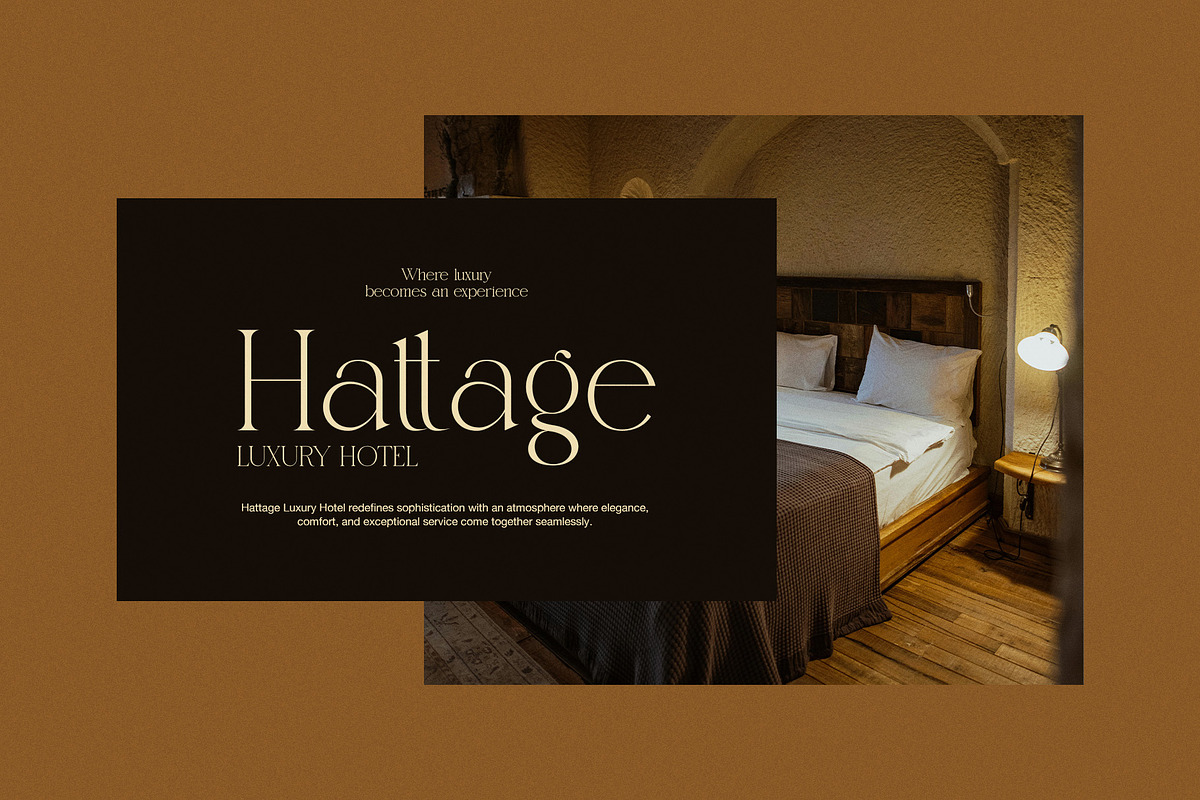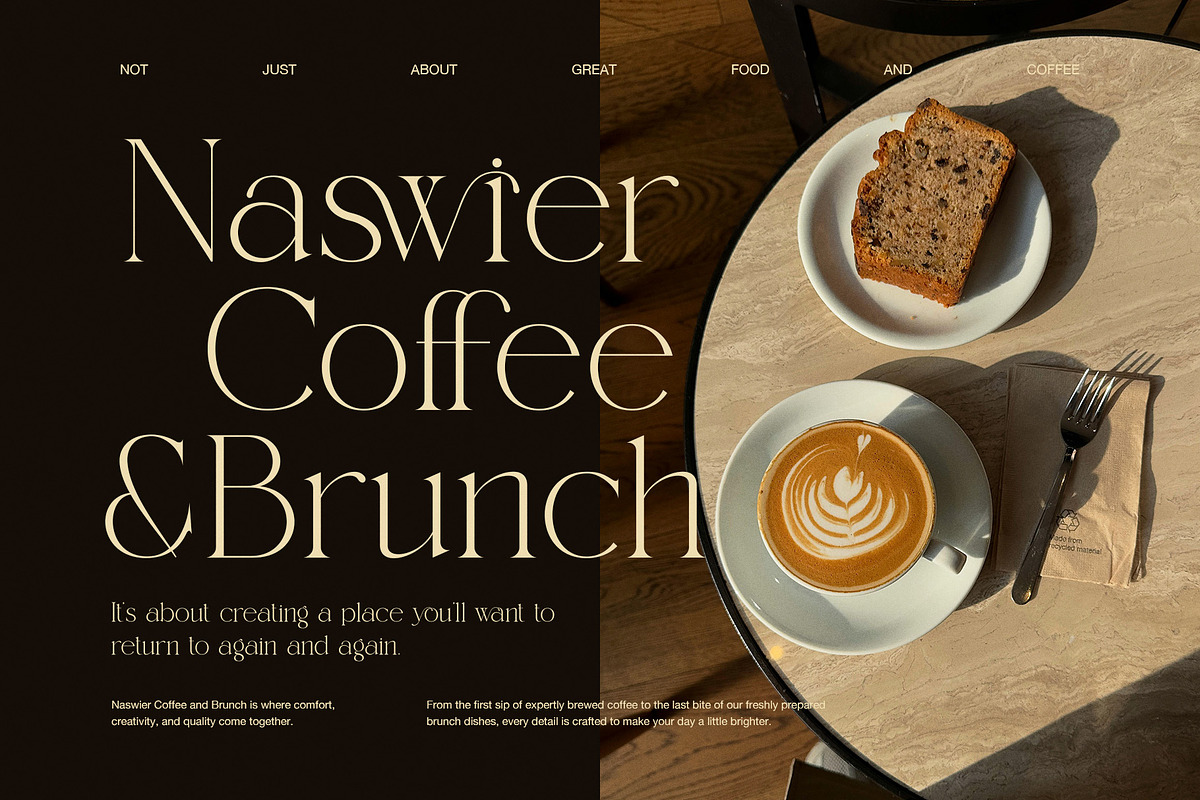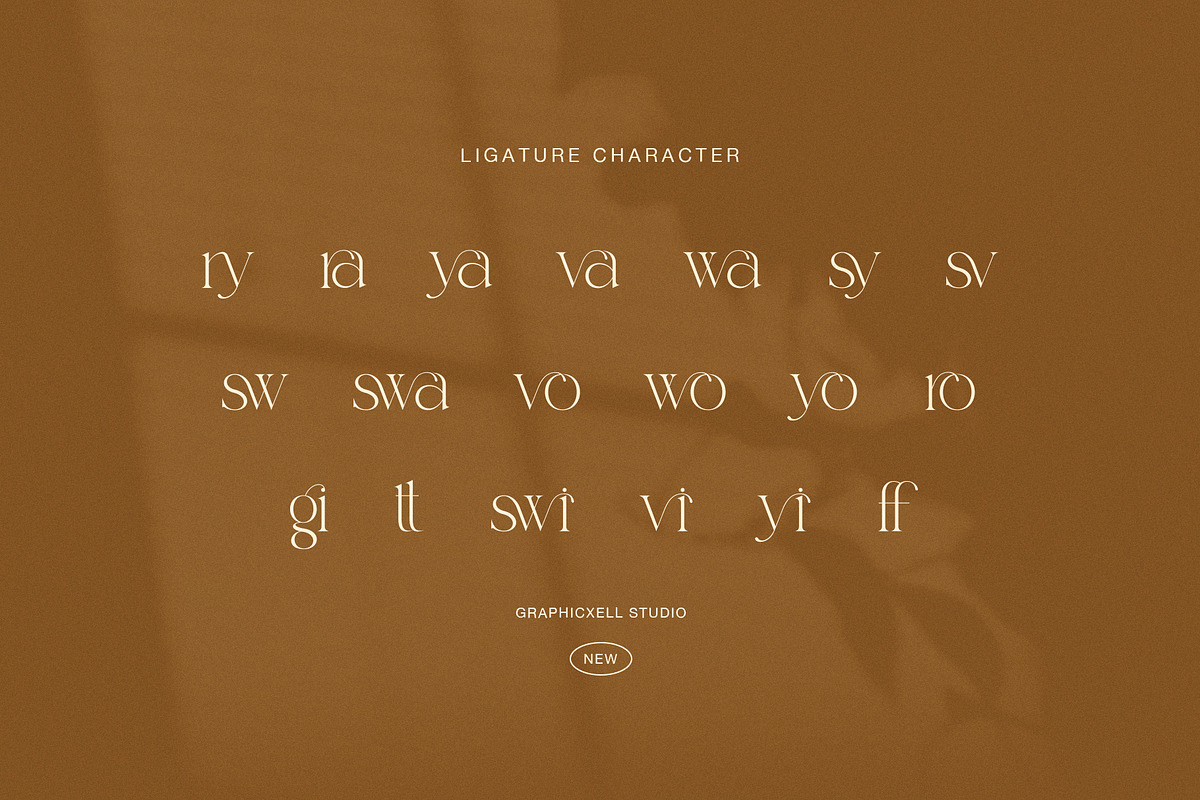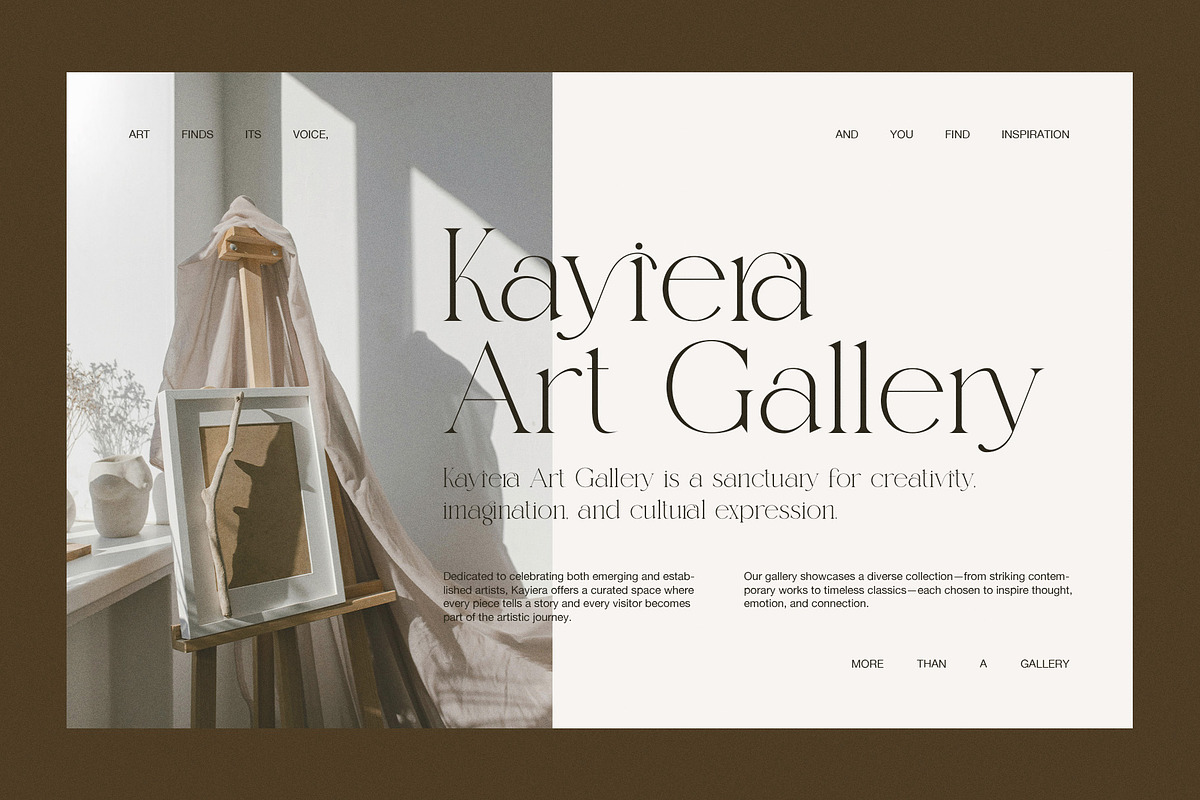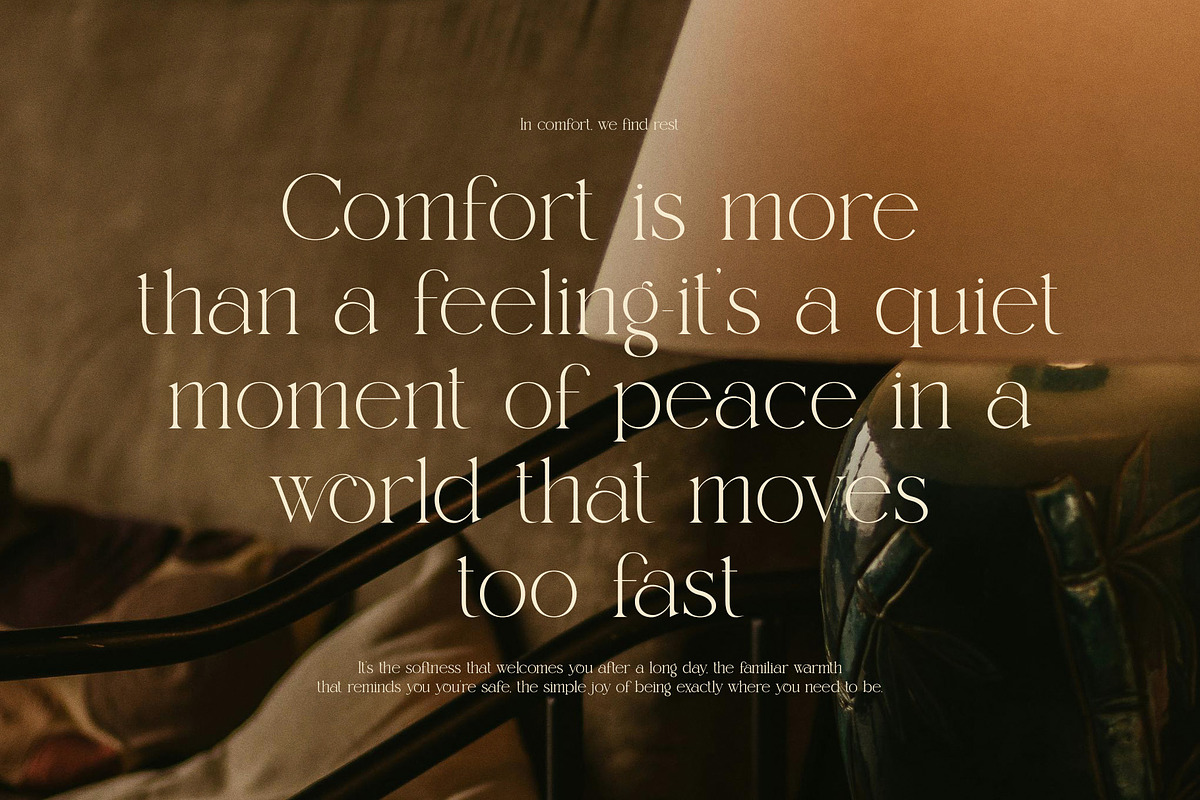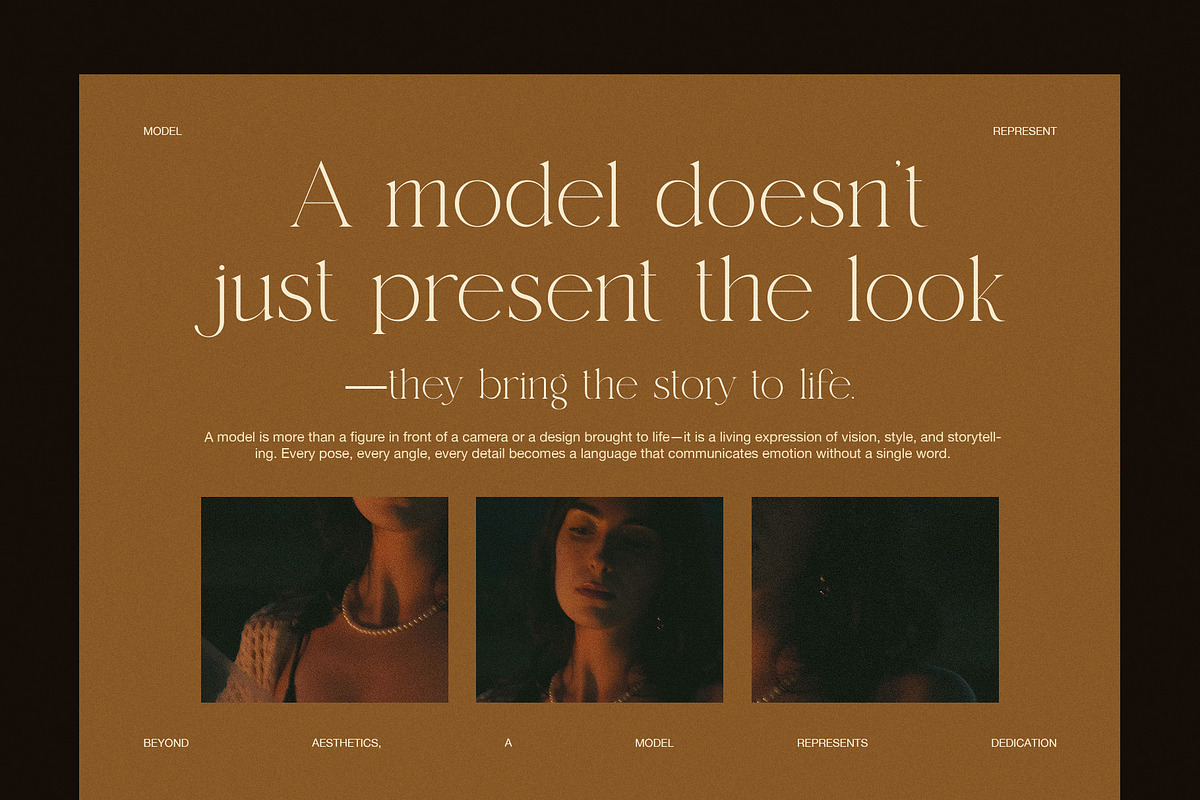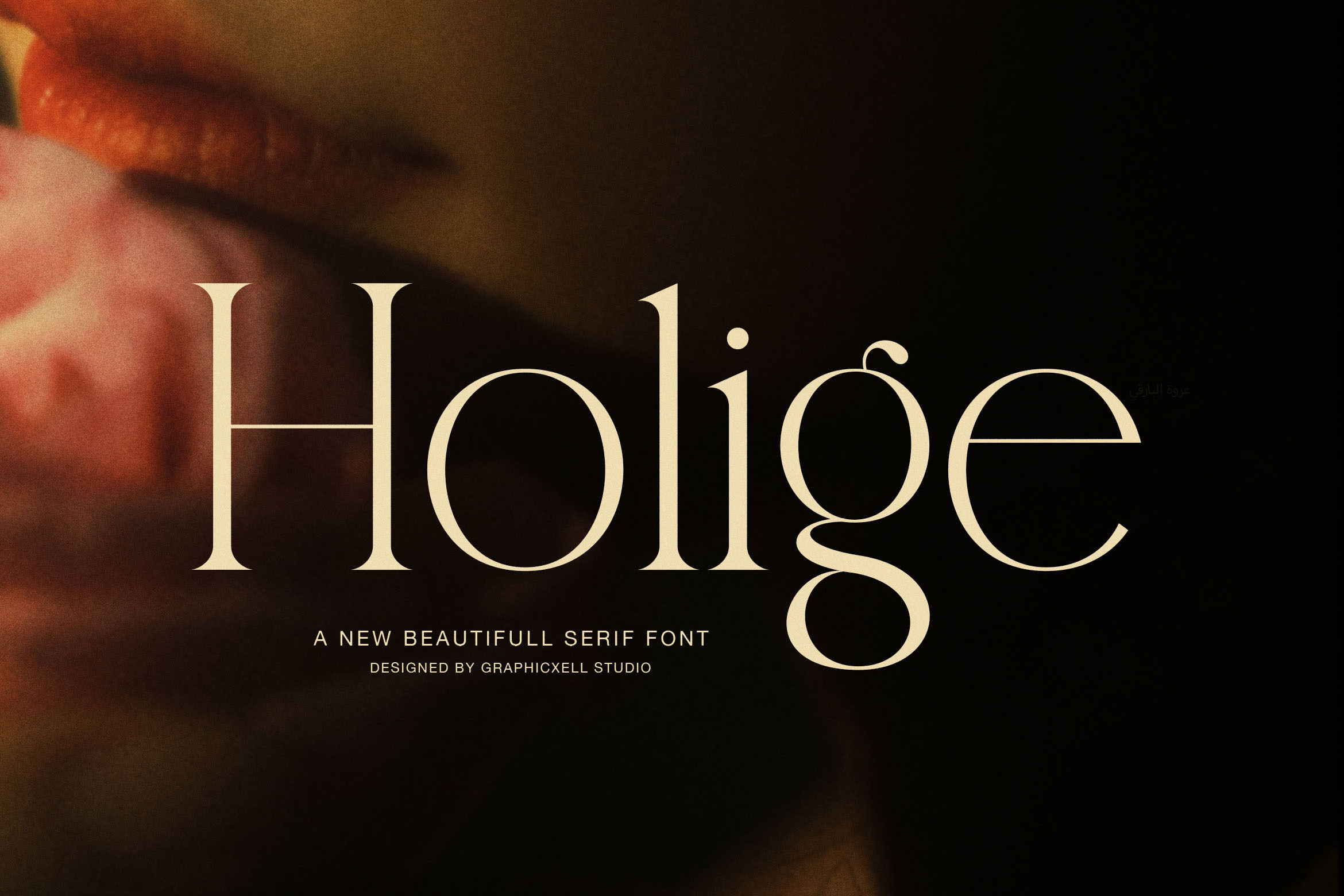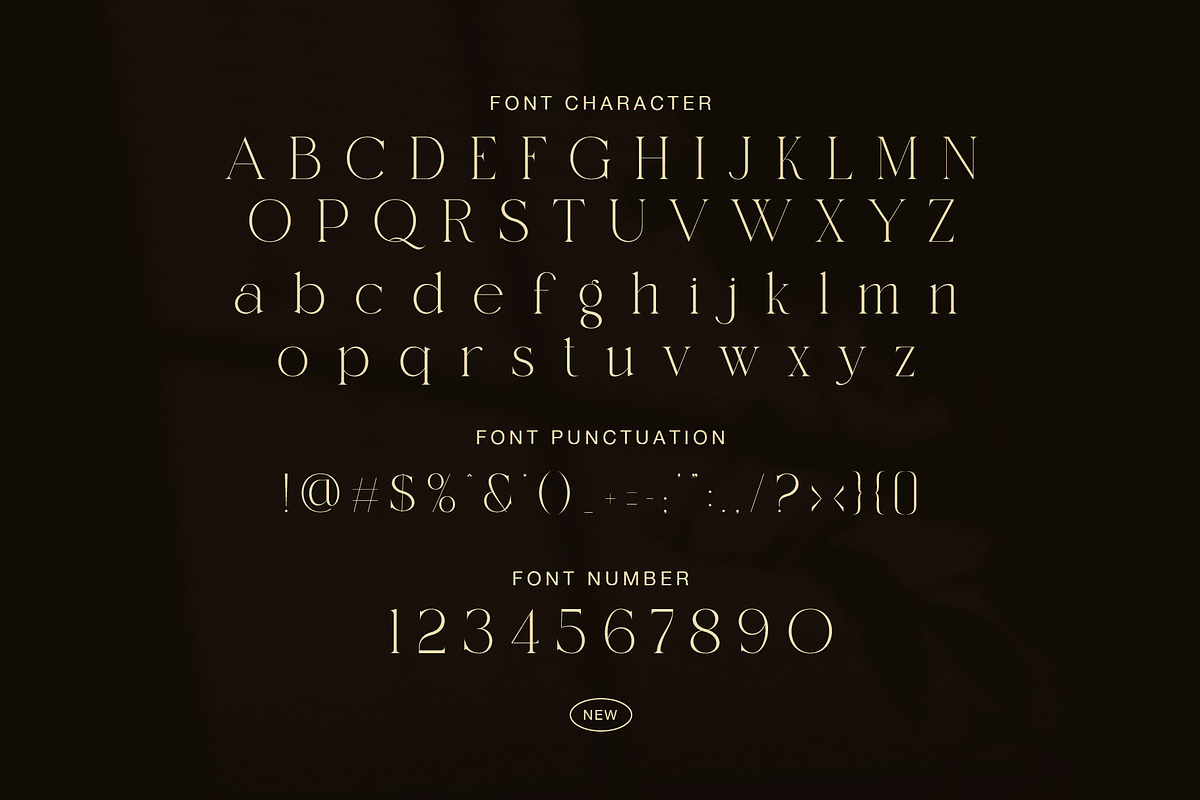
Holige Elegant Serif Font
Holige is a refined elegant serif font designed to bring timeless beauty to modern design. With its tall proportions, delicate contrast, and graceful curves, this font immediately creates a feeling of luxury and calm. Moreover, the subtle details give every word a polished and professional appearance, making it ideal for premium branding.
Unlike many serif fonts that feel heavy, Holige remains light and airy. The thin strokes balance beautifully with smooth terminals, so headlines look sophisticated without becoming overwhelming. In addition, the generous spacing improves readability, which helps your designs look clean both in print and on screen.
Holige works perfectly across many creative projects, especially those that need a soft yet upscale tone. For example, it looks stunning on fashion editorials, boutique logos, hotel branding, café menus, art galleries, wedding invitations, and lifestyle packaging. Because of its elegant personality, it also enhances social media posts, website headers, and advertising layouts.
Another advantage is its versatility. You can pair Holige with minimalist sans-serif fonts for a modern contrast, or combine it with script fonts for a romantic look. As a result, designers gain flexibility while maintaining a consistent premium feel.
Elegant high-contrast serif design
Clean, readable letterforms
Beautiful ligatures for smooth typography
Numbers and punctuation included
Perfect for luxury branding and editorial design
Suitable for print and digital use
Holige is more than just a typeface; it is a visual experience. It invites viewers to slow down, appreciate detail, and connect emotionally with your message. Therefore, if you want typography that feels calm, refined, and truly luxurious, Holige is an excellent choice.